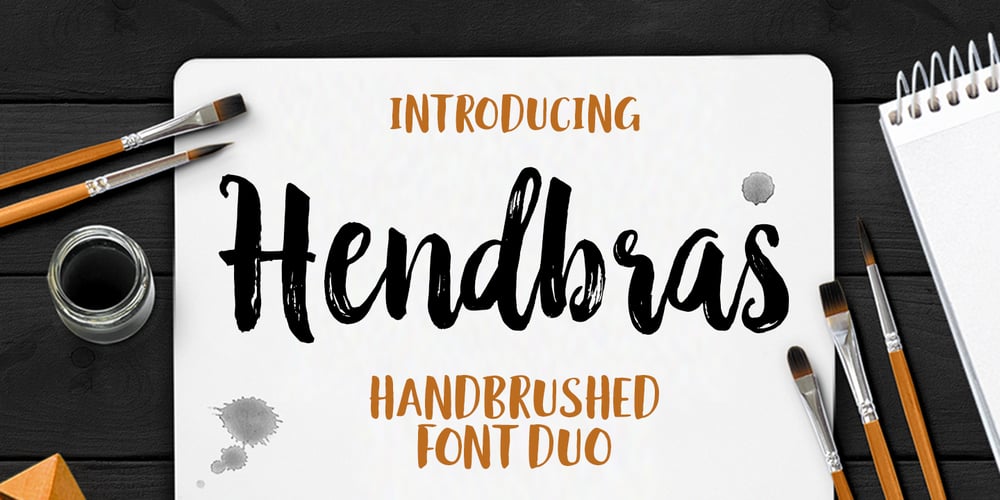
Hendbras
Hendbras font
Hendbras Font Family was designed by Seniors Studio and published by Seniors Studio. Hendbras contains 2 styles and family package options. Hendbras is handcrafted font duo created with a brush and ink, bold and irregular baseline. Contains a complete set of lowercase, uppercase, alternates, ligatures, punctuation, numbers, and multilingual support. This font ideal for use in watercolor design or lettering style bold hand, such as posters, wedding elements, t-shirt, apparel, cover books, business cards, greeting cards, branding, merchandise, invitations and handmade quotes and more.